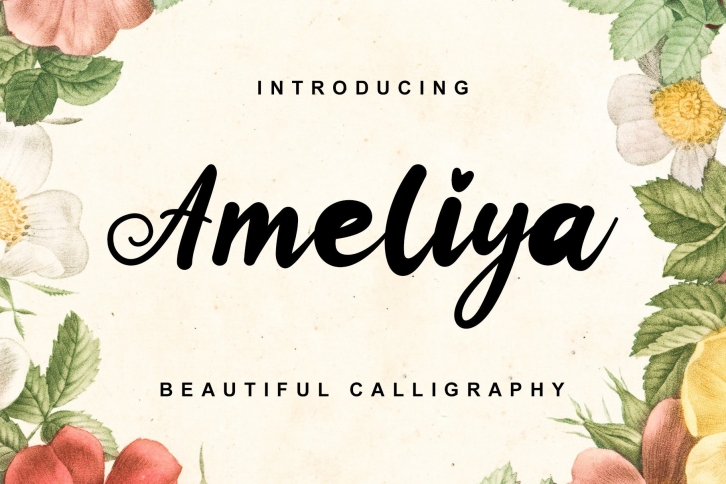
Ameliya is a beautiful script font that works well for a variety of designs. Get inspired by its playful romantic charm! Add this lovely font to your creations and take your designs to the next level!
Great for market imaginary children’s books, online games, stationery, school supplies fonts, posters, movie titles, youtube covers, youtube thumbnails, social media page covers, cartoon titles, poster titles, magazine titles, t-shirt printing, brands designs, labels, websites and business cards as well as casual designs such as packaging, posters, flyers, quotes, social media posts, invitations, special event cards and more.